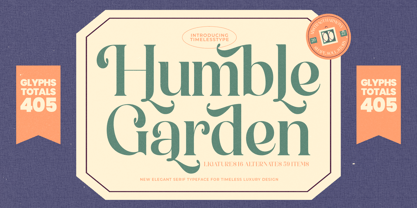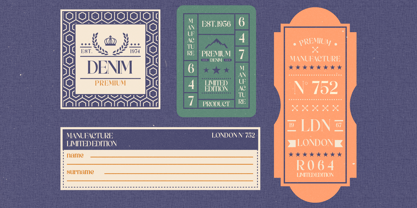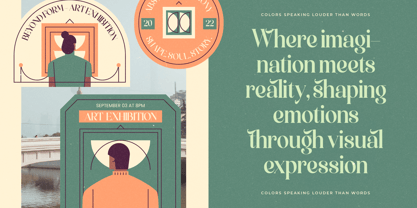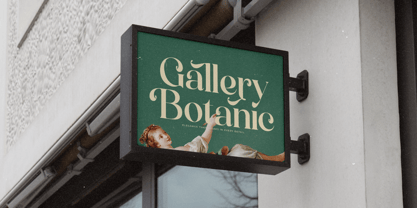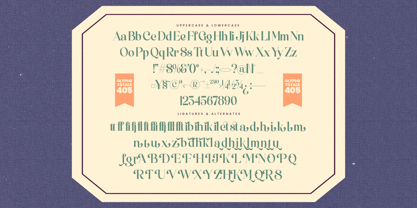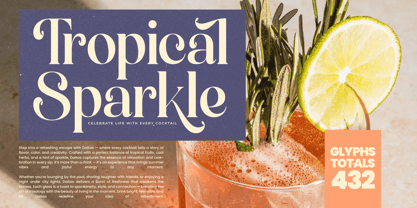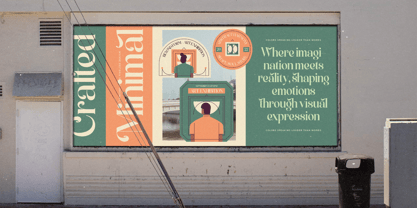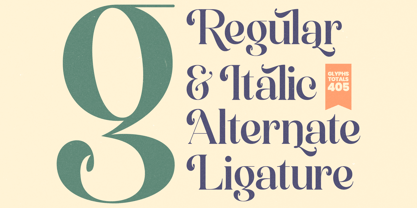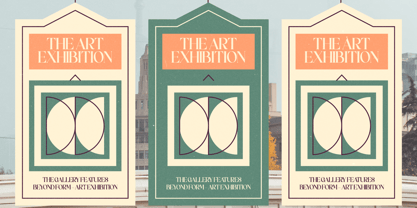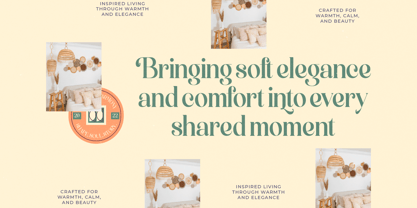
Humble Garden
by Timelesstype Studio
The Humble Garden Font Family was designed by Heru Utama Putra and published by Timelesstype Studio. Humble Garden contains 2 styles and family package options. More about this family
Humble Garden - New Elegant Serif Font , from Timelesstype , Suitable for any projects such as: logos, branding projects, homeware designs, product packaging, mugs, quotes, posters, shopping bags, t-shirts, book covers, name card, invitation cards, greeting cards, label, photography, watermark, special events, and all your other luxury and beautiful projects that need a Luxury Serif taste.